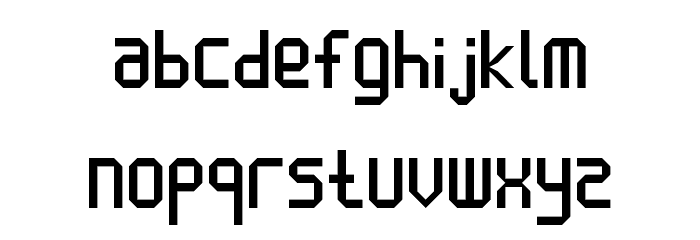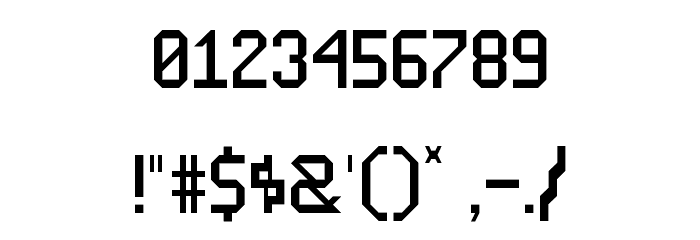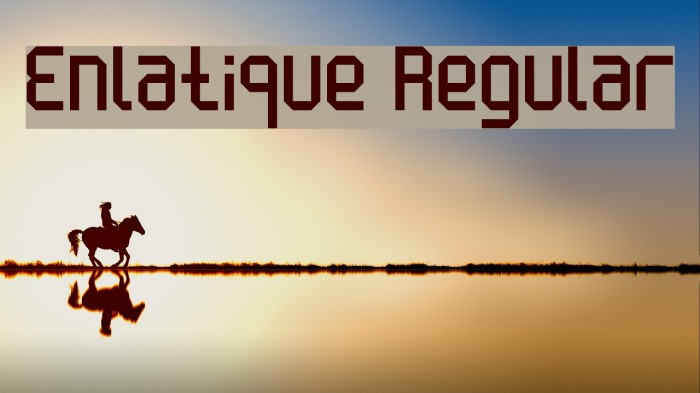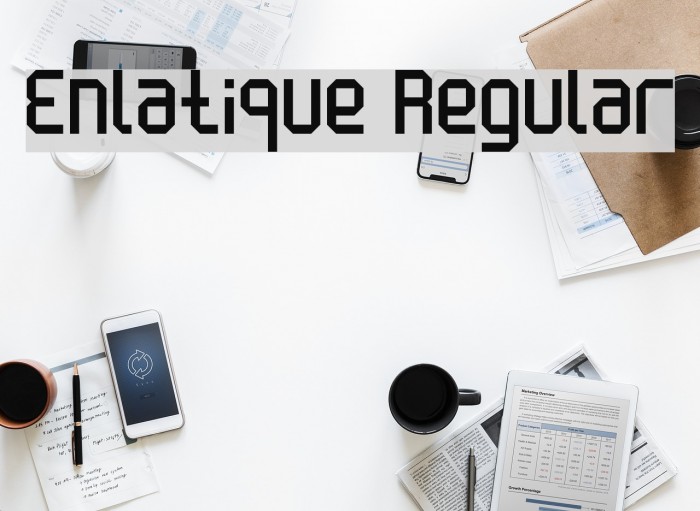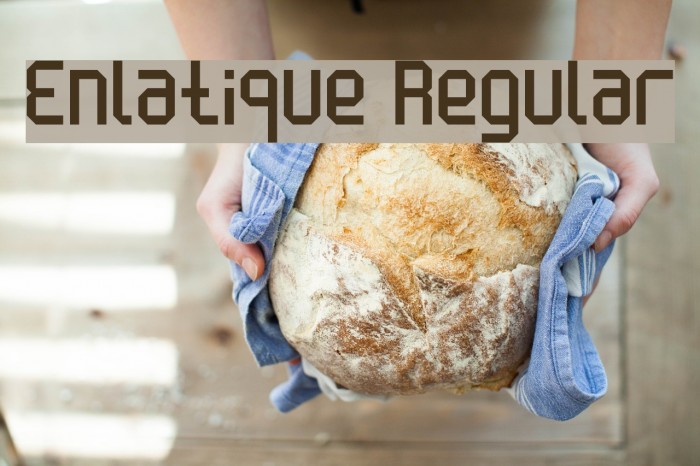
Enlatique Regular Font
This font features a geometric and angular design, characterized by its blocky and structured appearance. The uppercase and lowercase letters maintain a consistent height, creating a uniform and cohesive look. The numerals and special characters follow the same angular style, enhancing the overall geometric theme. The font's design is modern and slightly futuristic, with a focus on clarity and readability. Its unique style makes it suitable for projects that require a bold and distinctive typeface.
A geometric, angular font with a modern and structured appearance.
- Proposed Projects: Ideal for technology branding, video game interfaces, sci-fi themed projects, and modern poster designs.